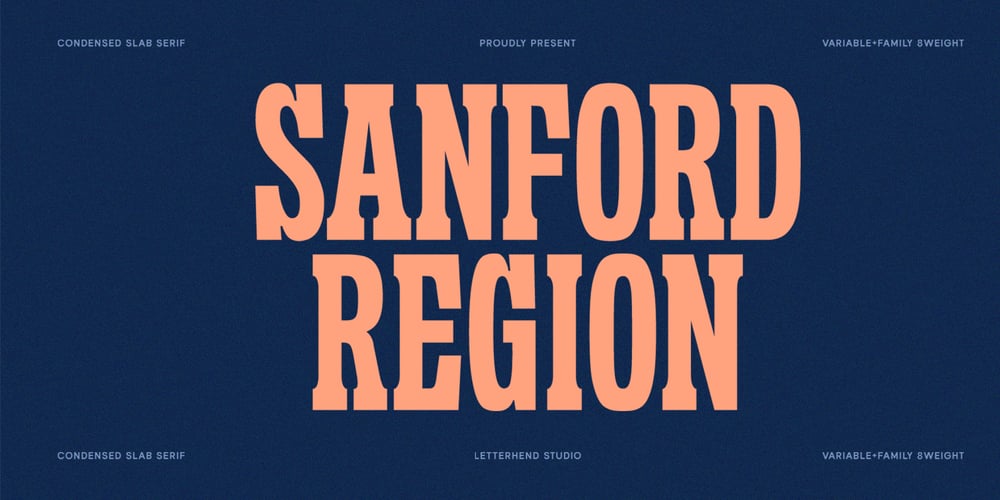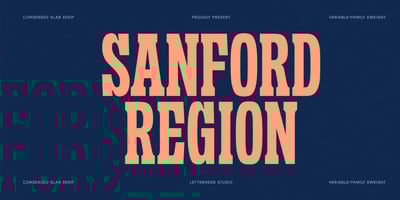
Sanford Region
Sanford Region font
Sanford Region Font Family was designed by Hendry Juanda and published by Letterhend. Sanford Region contains 8 styles and family package options. Sanford Region is a condensed slab serif typeface with strong look and feel. This font is a variable font with 8 weight style you can choose from. Perfectly made to be applied especially in logo, headline, signage and the other various formal forms such as invitations, labels, logos, magazines, books, greeting / wedding cards, packaging, fashion, make up, stationery, novels, labels or any type of advertising purpose.Features : Variable font with 8 weight style uppercase & lowercase numbers and punctuation multilingual PUA encoded We highly recommend using a program that supports OpenType features and Glyphs panels like many of Adobe apps and Corel Draw, so you can see and access all Glyph variations.